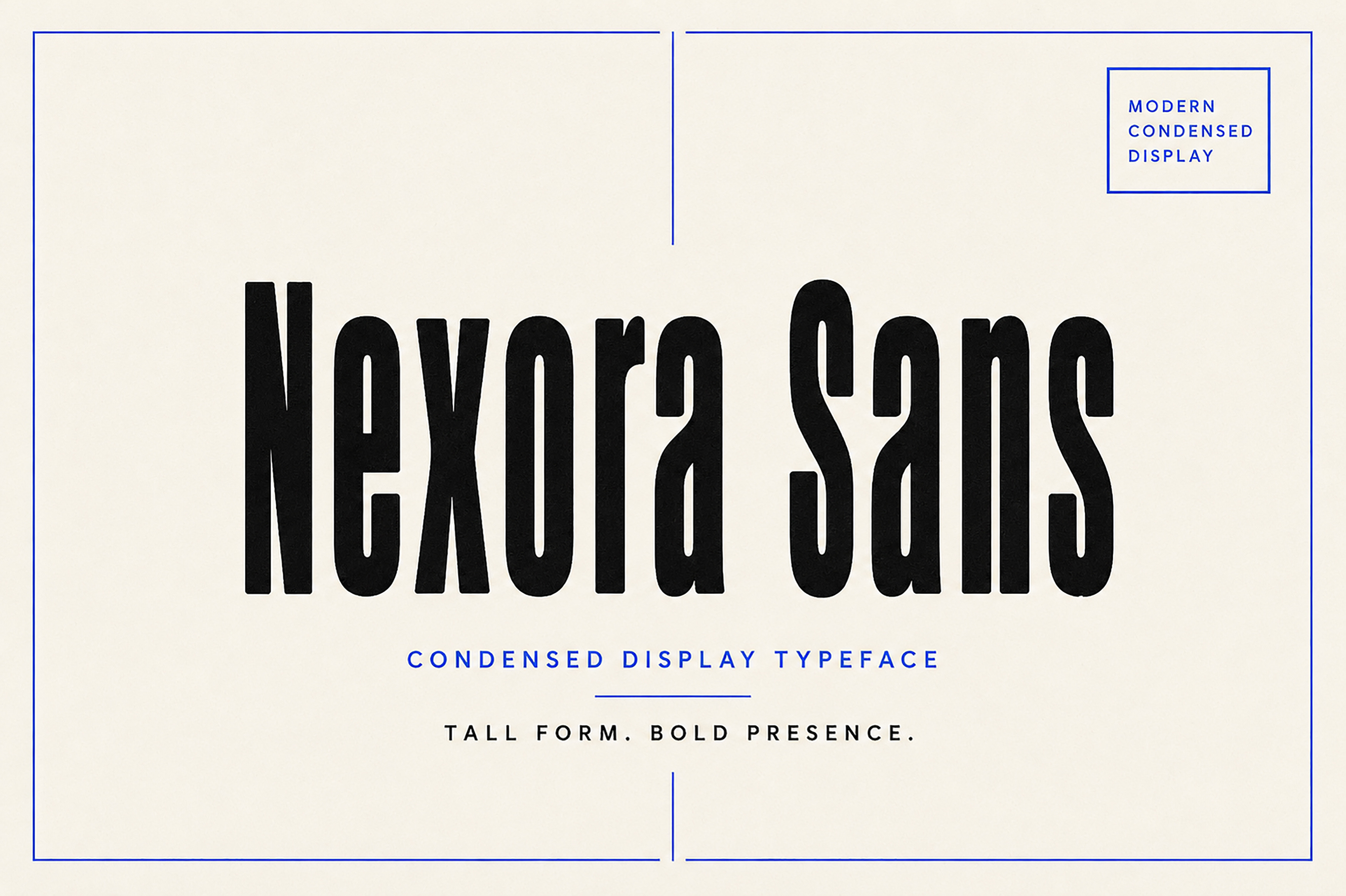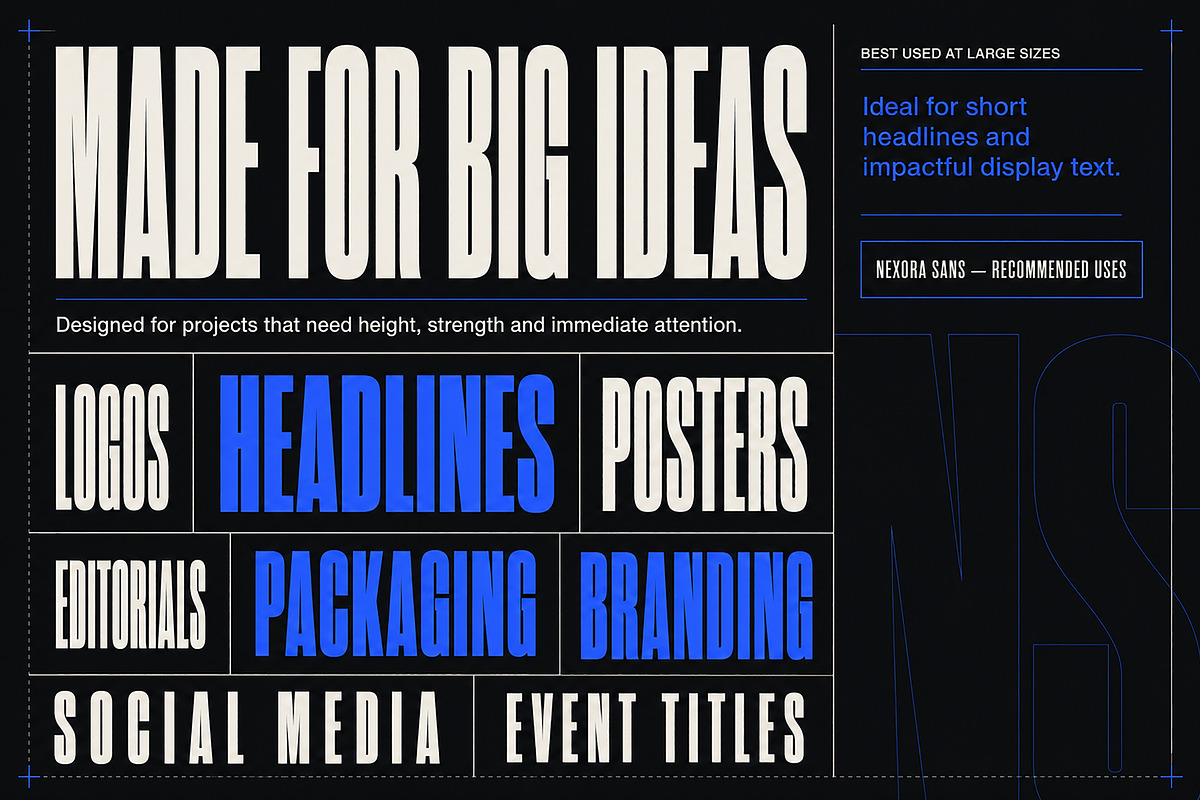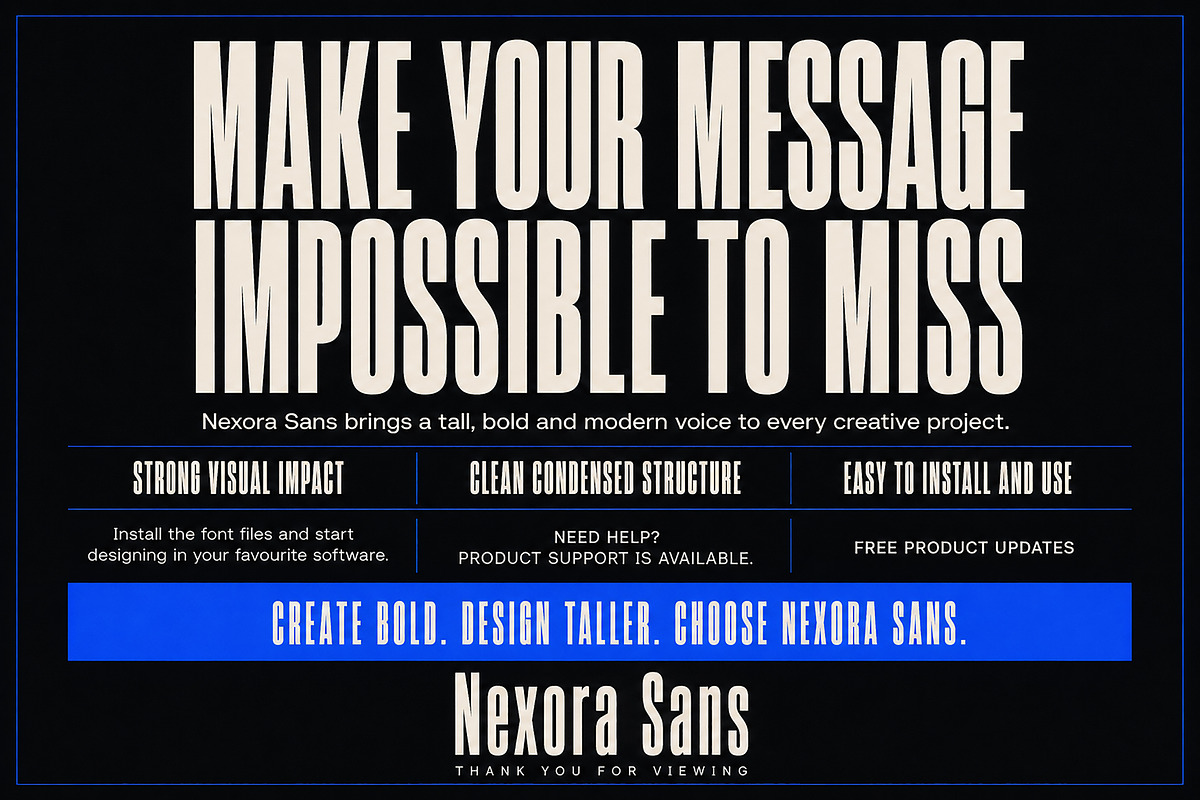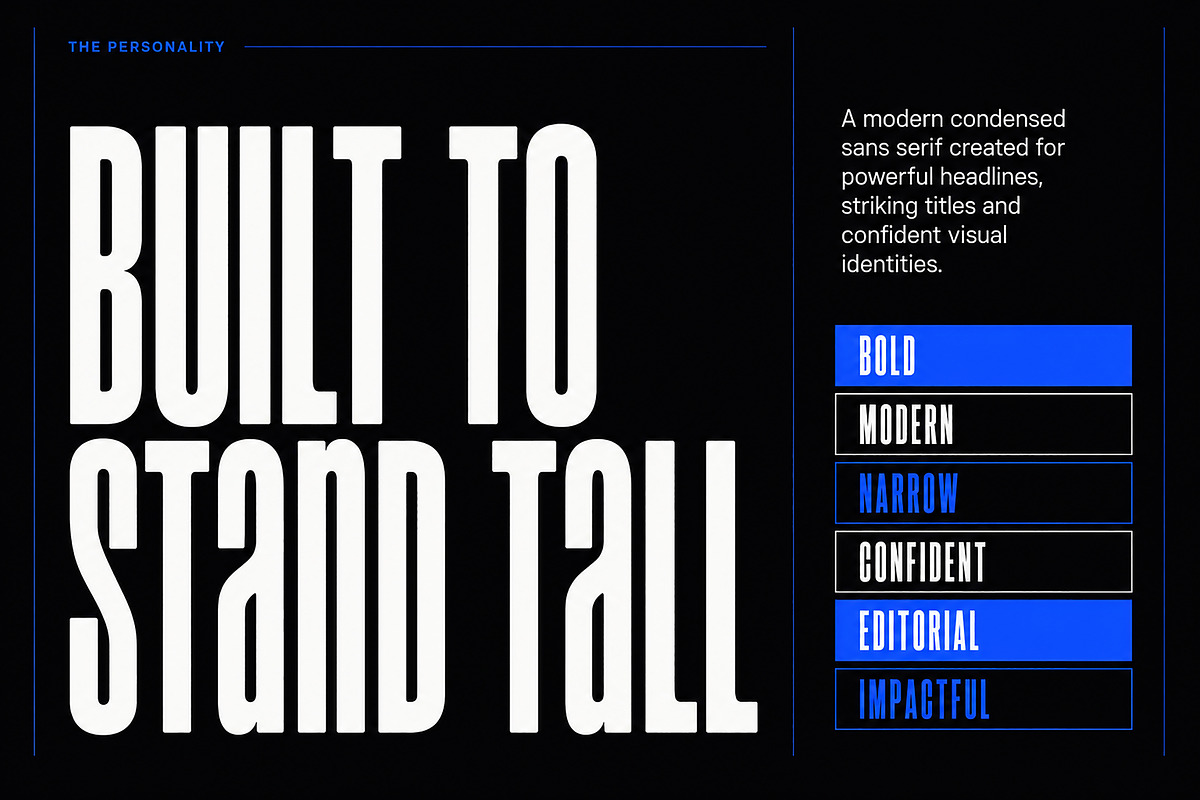
Nexora Sans – Bold Display Font
Nexora Sans – Bold Condensed Display Font
Meet Nexora Sans, a bold condensed sans-serif typeface designed to make every message stand tall. Its narrow proportions, strong structure, and confident appearance make it perfect for powerful headlines and attention-grabbing display typography.
Nexora Sans delivers maximum visual impact while using less horizontal space. It is an excellent choice for logos, branding, posters, editorial titles, packaging, social media graphics, advertising, event promotions, website headers, apparel, and other modern creative projects.
Whether you are building a bold brand identity or creating a striking headline, Nexora Sans gives your design a clean, modern, and distinctive voice.
Logos and branding
Headlines and titles
Posters and advertising
Editorial layouts
Packaging design
Event promotions
Website headers
Apparel and merchandise
Modern visual identities
Bold and condensed letterforms
Tall, narrow proportions
Strong visual impact
Clean and modern appearance
Uppercase and lowercase letters
Numerals and punctuation
Standard ligatures
Suitable for print and digital projects